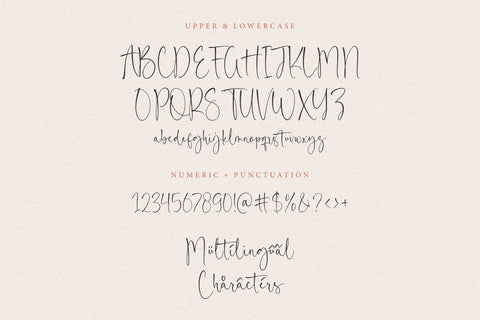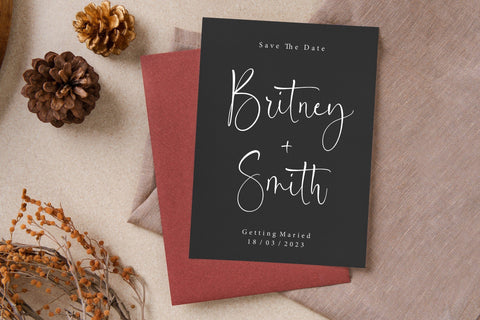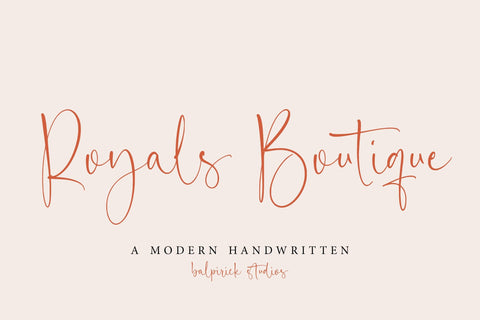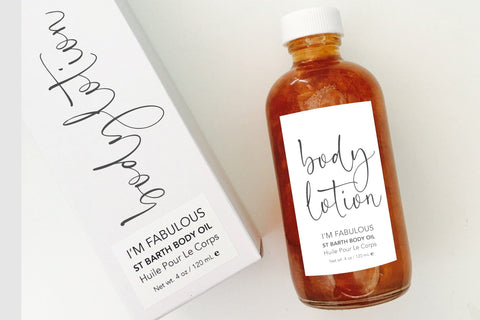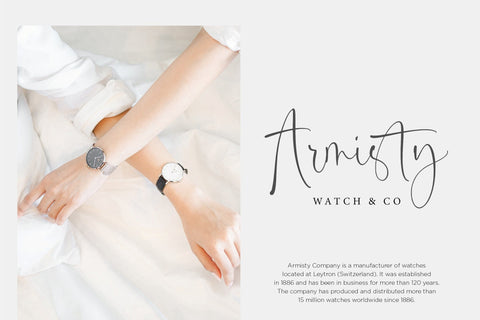
Royals Boutique Font
Royals Boutique is a Modern Handwritten Font.
Whether you’re using it for crafts, digital design, presentations, or making greeting cards, this font has the potential to become your favorite go-to font, no matter the occasion!